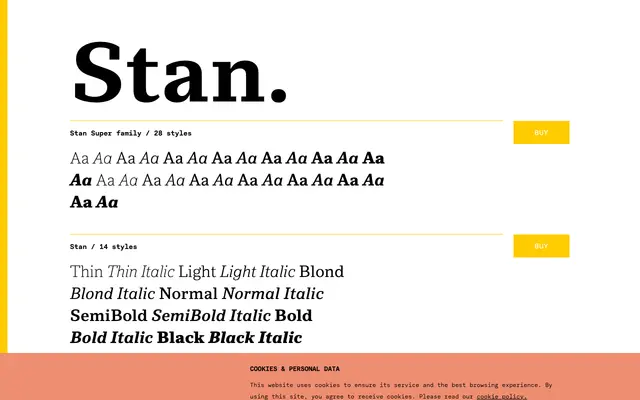
A 28-style superfamily split across two subfamilies, Stan and Stan Plus, each spanning seven weights with matching italics.
Stan is a humanist sans-serif superfamily comprising two subfamilies, Stan and Stan Plus, each offering seven weights from Thin to Black with italic companions, totalling 28 styles. Both subfamilies share the same weight range and OpenType feature set, including small capitals, oldstyle figures, tabular figures, fractions and stylistic alternates. The distinction between Stan and Stan Plus suggests differing spacing or proportion treatments suited to complementary typographic roles.
The weight naming conventions (Blond, Normal) and the overall presentation suggest a humanist sans-serif with a refined, text-oriented character. No serif features are apparent from the specimen.